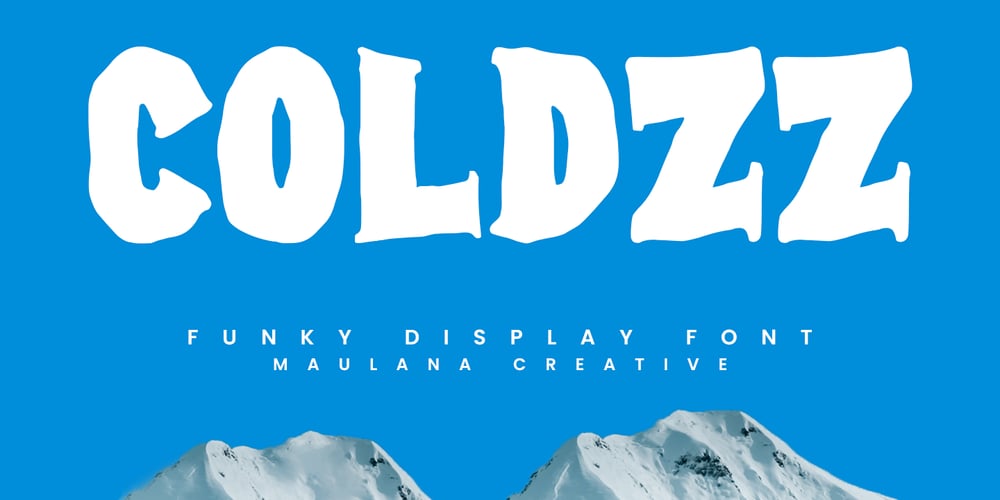
MC Coldzz Font Family was designed by Gilang Maulana and published by Maulana Creative. MC Coldzz contains 1 styles and family package options. Coldzz freeze funky display font vintage. With bold tall and sharp stroke, fun character with a bit of ligatures and alternates. To give you an extra creative work. Coldzz font support multilingual more than 100+ language. This font is good for logo design, Social media, Movie Titles, Books Titles, a short text even a long text letter and good for your secondary text font with sans or serif. Make a stunning work with Coldzz font.Cheers,Maulana Creative